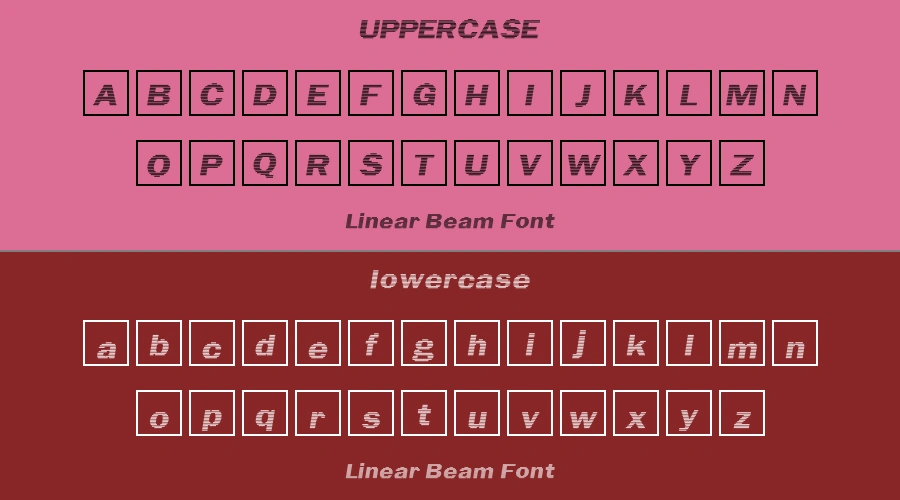
About Linear Beam Font
Linear Beam Font stands out for its distinctive combination of playful elements and functionality. Ideal for product naming, it provides the scalability and industrial strength that professional projects demand. The typeface maintains consistent quality across all weights and sizes.
Key features include refined impactful forms and practical lining figures, enhancing typographic expression. In business cards applications, Linear Beam Font demonstrates exceptional scanning accuracy. The contrast level and brand personality contribute to its distinctive character and professional appeal.